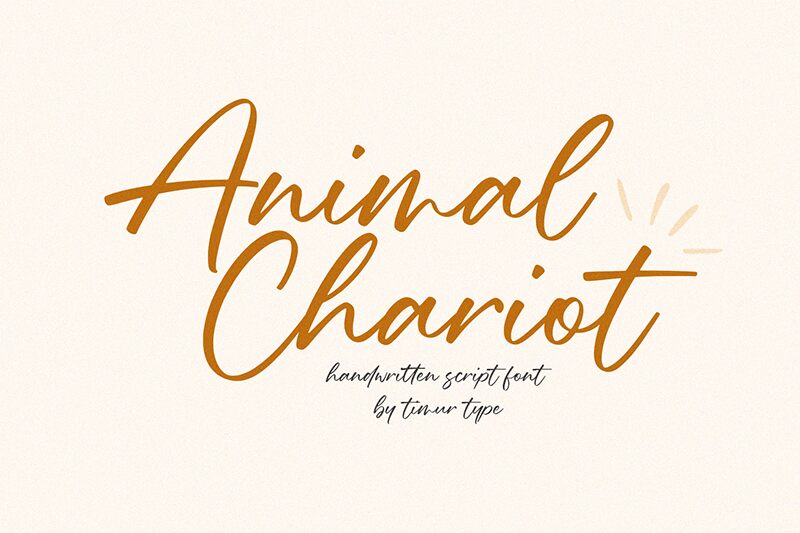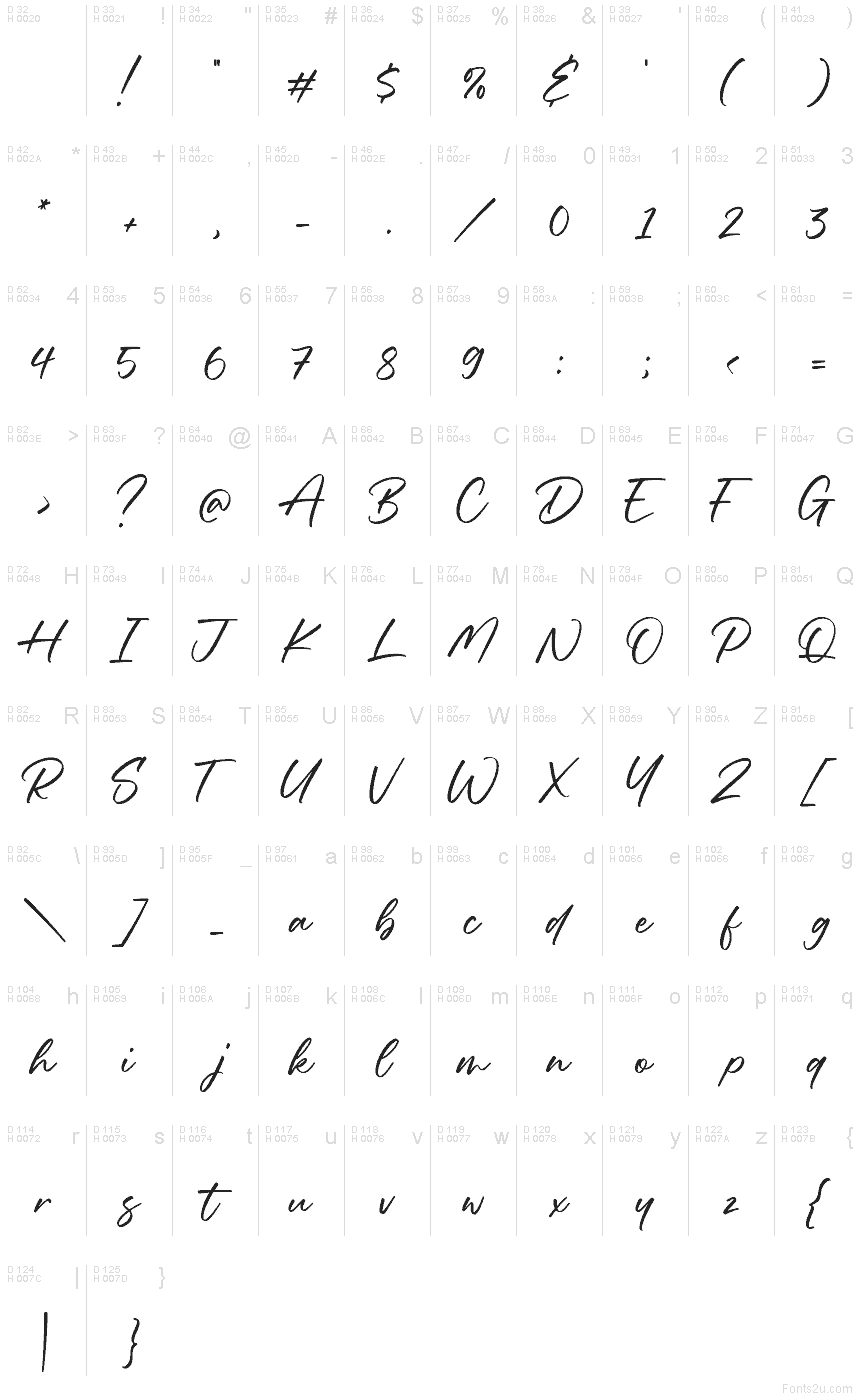
Animal Chariot
Animal Chariot font by Timur Type is a free handwritten script font that finally gets the balance right between elegance and legibility. Its smooth, slightly slanted strokes and gentle inky pressure shifts read cleanly at a glance, avoiding the fussy swirls that slow readers down. The joins feel natural and consistent, giving you that polished, personal touch without the mess.
Using Animal Chariot, you can craft wedding invitations, boutique logos, product packaging, event posters, social quotes, and signature-style tags that feel warm and refined. This free font holds together beautifully in headlines and short phrases; give it a touch of letter spacing for airy sophistication. Pair with a light geometric sans to anchor the script’s flow and keep layouts crisp.